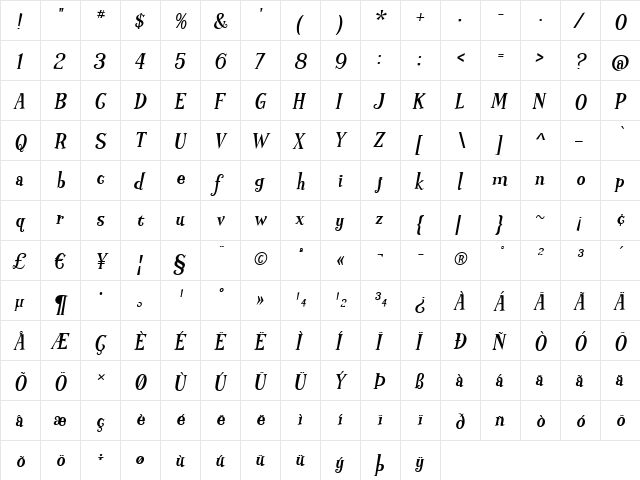
Pink Martini Bold Italic Regular Font Preview
Design Context for Pink Martini Bold Italic Typeface
Pink Martini Bold Italic takes a measured approach to typography — its balanced proportions and neutral character make it a reliable workhorse for both digital and print work. The slanted form adds forward momentum and visual energy. The heavy weight commands attention and anchors typographic hierarchies.
Pro Tip: Use Pink Martini Bold Italic for emphasis, pull quotes, and subheadings where its slanted energy can add rhythm to the layout.